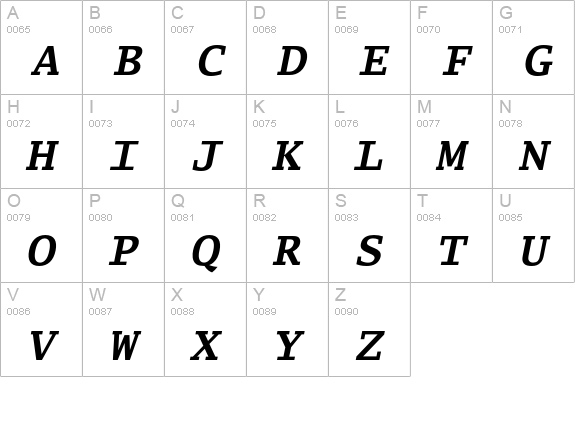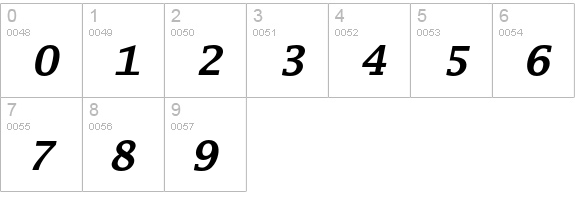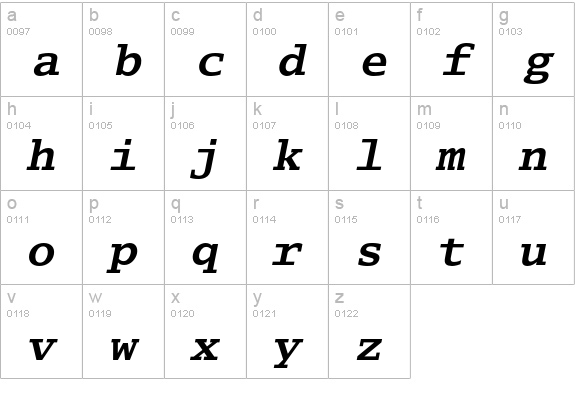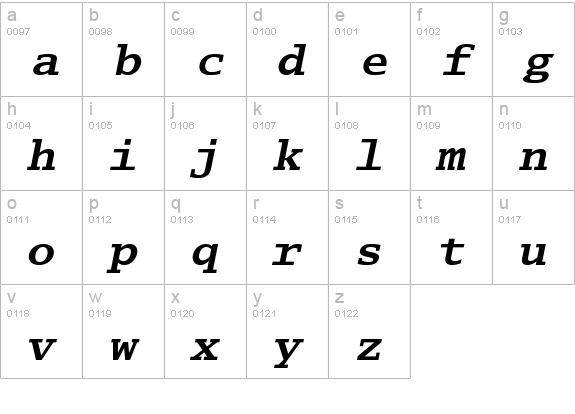
Lucida Typewriter Std Bold Oblique Font Details
Lucida Typewriter Std Bold Oblique is a strong, high-contrast, italic variant in the Lucida typeface family \xE2\x80\x94 well suited to headlines, attention-grabbing titles, and strong calls-to-action.
Lucida Typewriter Std Bold Oblique font is a versatile and stylish typeface that combines the classic aesthetics of a typewriter font with a modern twist. The bold oblique style adds a touch of sophistication and emphasis to any text, making it perfect for a wide range of design projects. This font is ideal for creating eye-catching headlines, titles, and captions that demand attention. Its clean lines and distinct character shapes ensure readability and clarity, even at smaller sizes. Whether you're designing a poster, flyer, or logo, Lucida Typewriter Std Bold Oblique font will add a professional and polished touch to your work. The best part is that this font is available for free download at FontsMarket.com. Simply visit the website and start using Lucida Typewriter Std Bold Oblique font in your projects today. Don't miss out on this opportunity to enhance your designs with this exceptional typeface!